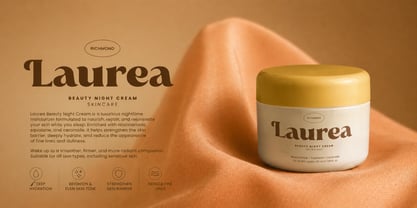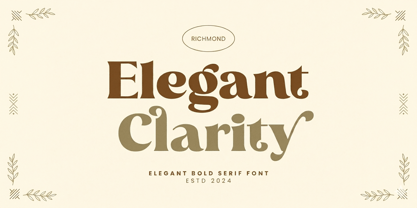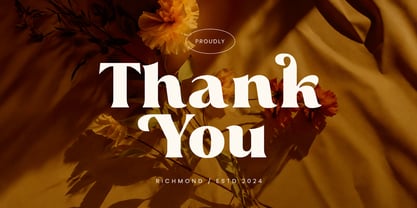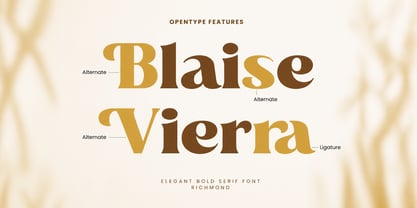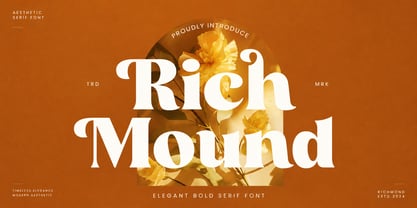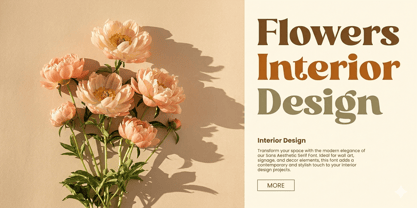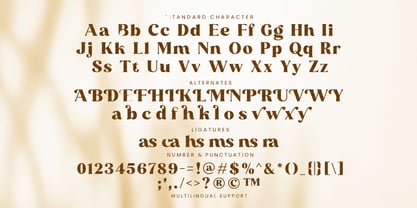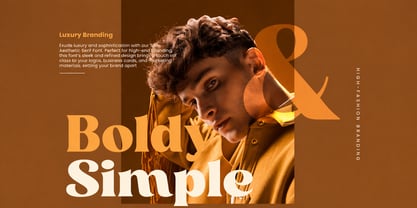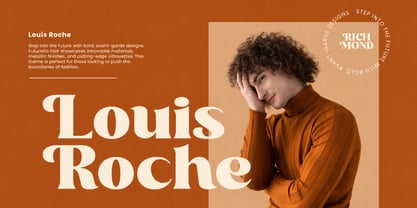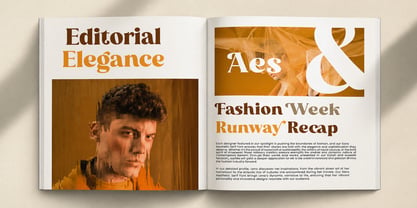
Richmound
by Unitype Studio
The Richmound Font Family was designed by Faizul Muna and published by Unitype Studio. Richmound contains 1 styles. More about this family
Richmond Beauty Logo Font is a playful and stylish serif font designed to bring elegance, personality, and a touch of retro charm to your creative projects. With its distinctive serif shapes and balanced letterforms, Richmond offers a unique typographic style that works beautifully for logos, branding, and editorial design.
This serif font blends nostalgic character with modern design sensibility, creating a typeface that feels both timeless and fresh. Its decorative yet readable letterforms make it perfect for beauty brands, fashion labels, and creative projects that require a stylish and memorable visual identity.